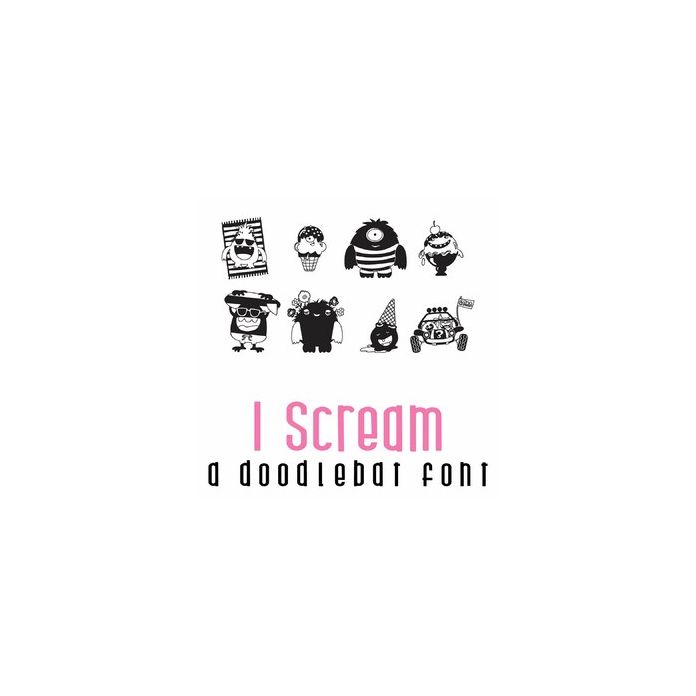
This fun doodlebat font features 26 adorable monsters ready for the sun and fun summer treats. Perfect for cards, crafts, gifts, decor, scrap book pages, planner stickers and more!